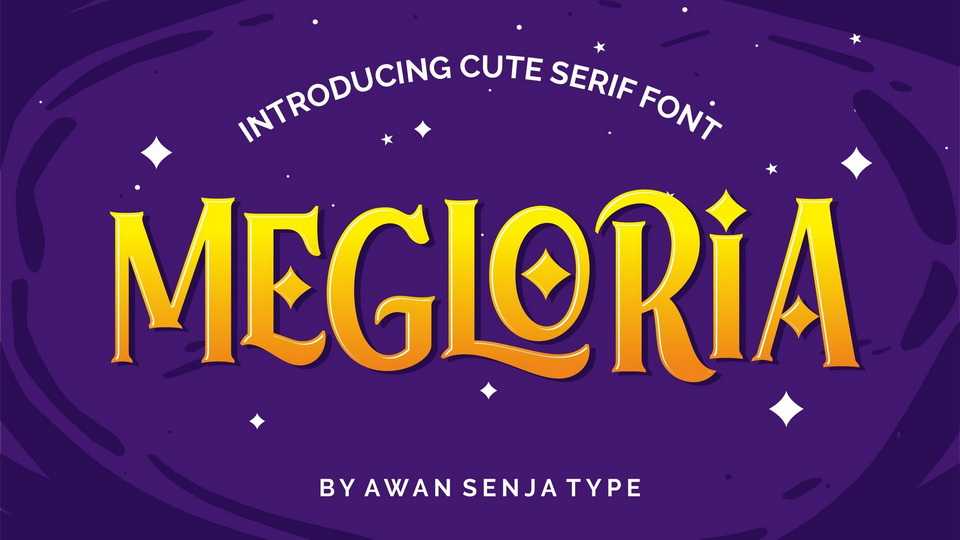
Download Megloria font, a cute and playful display typeface. This font perfectly made to be in poster funny, and the other various formal forms such as invitations, labels,
Designer: Awan Senja